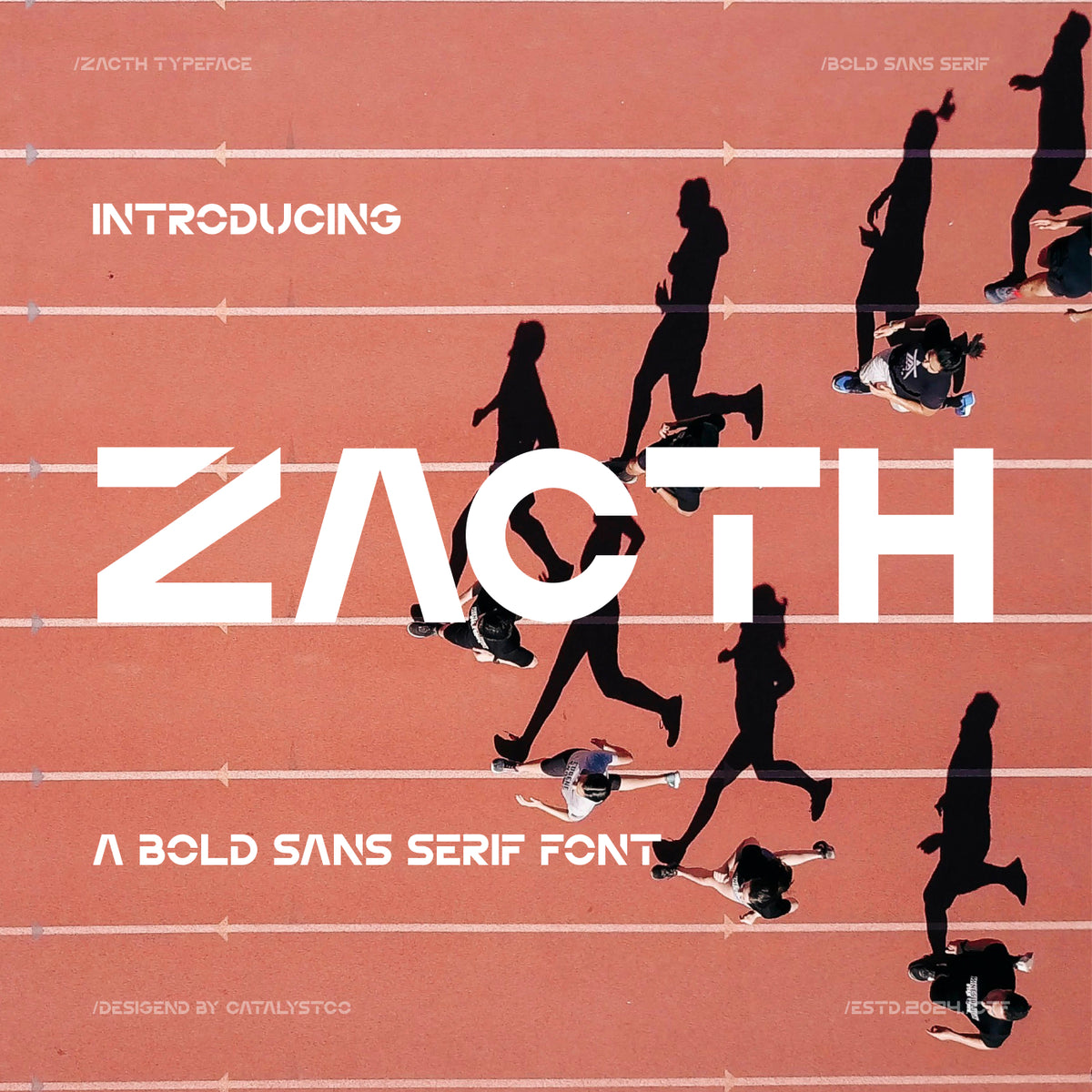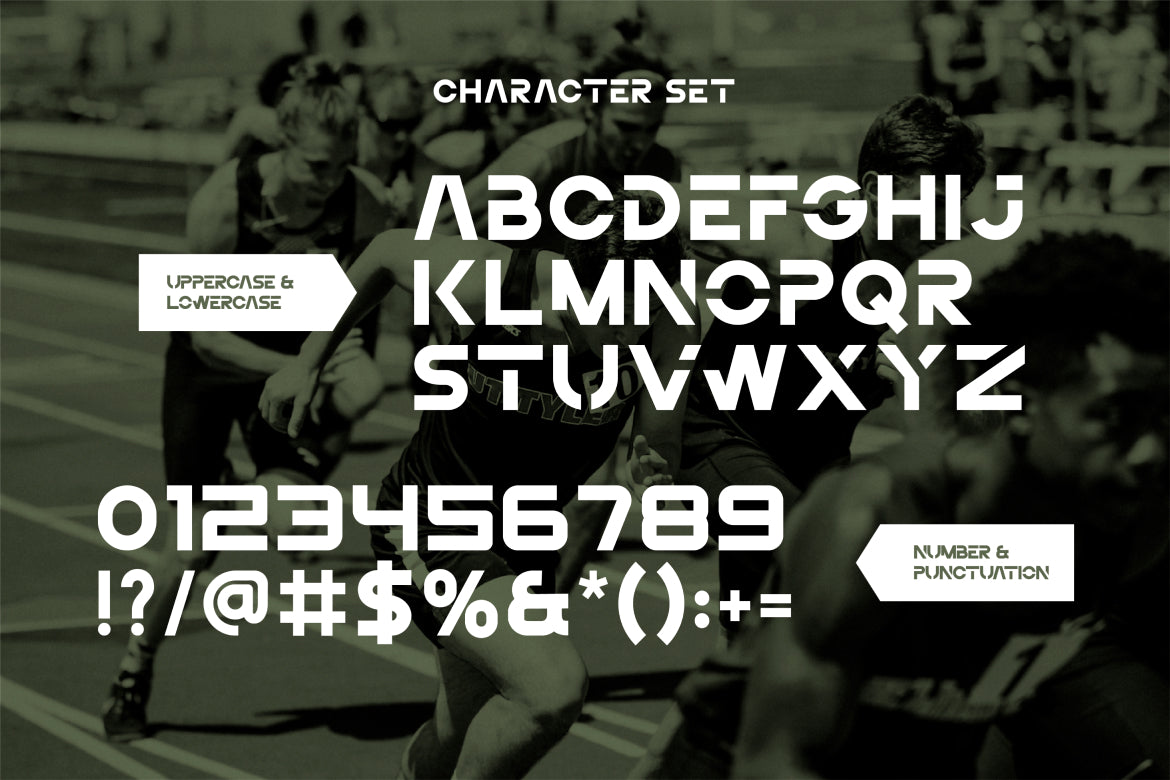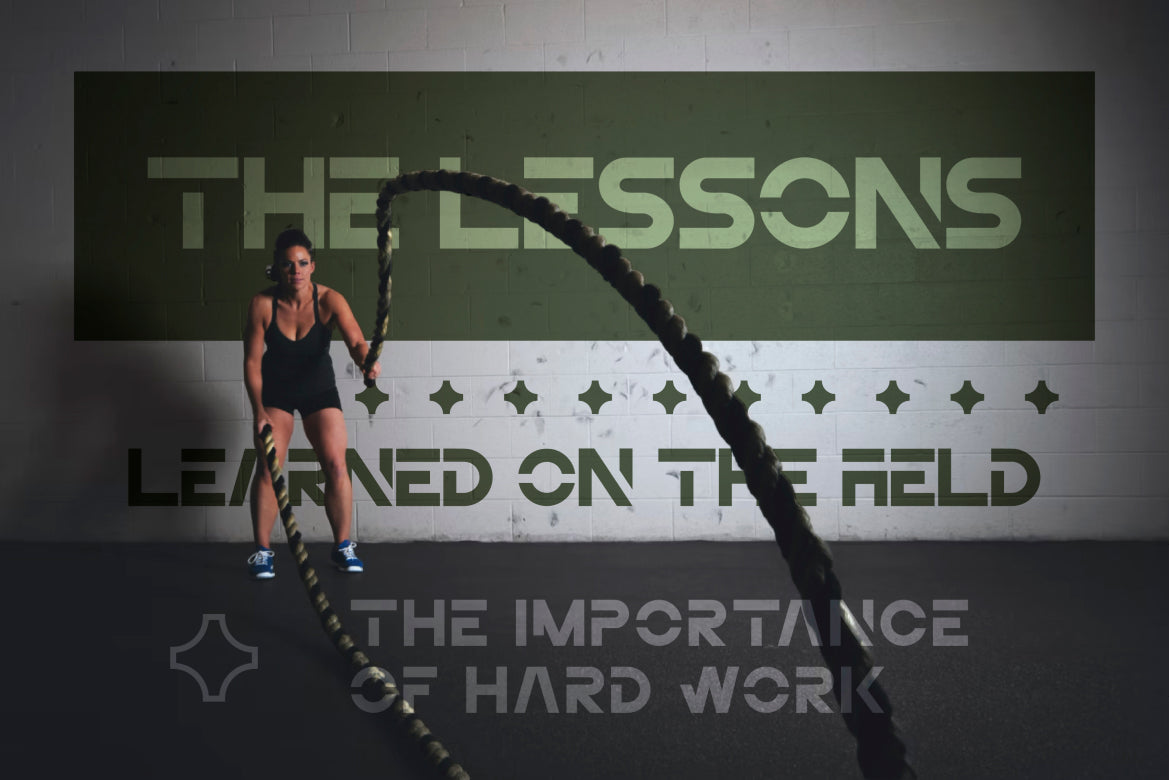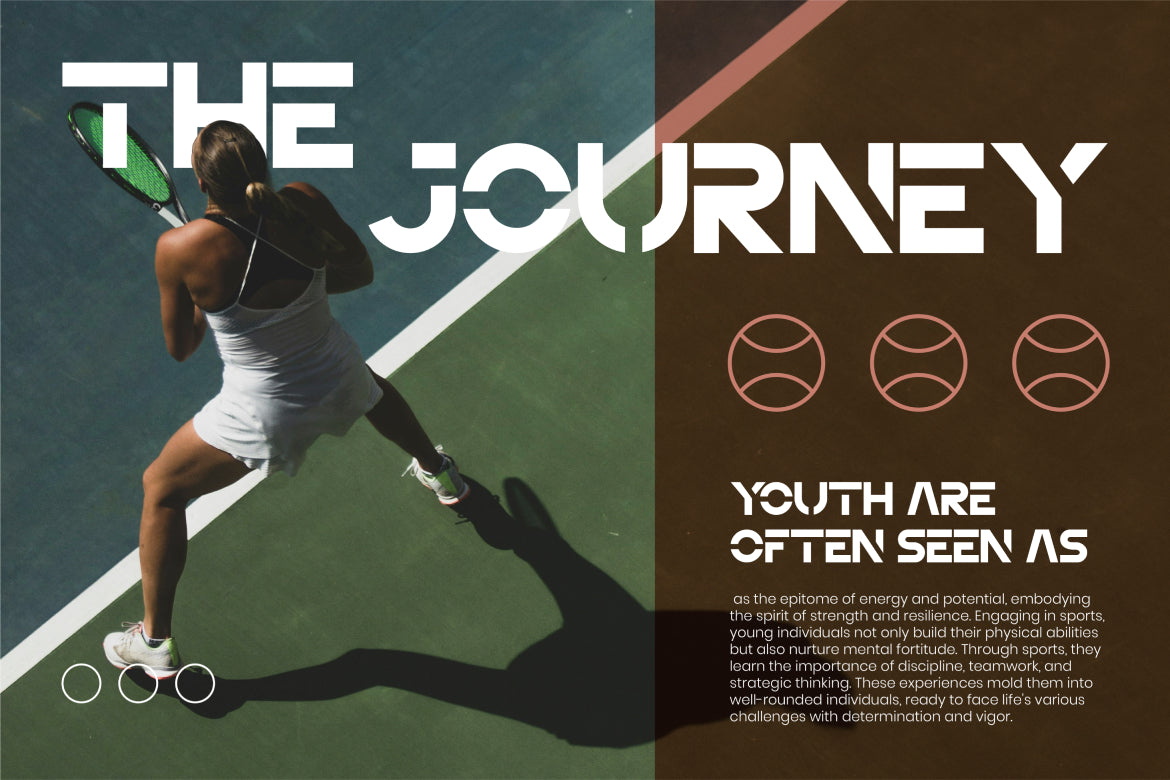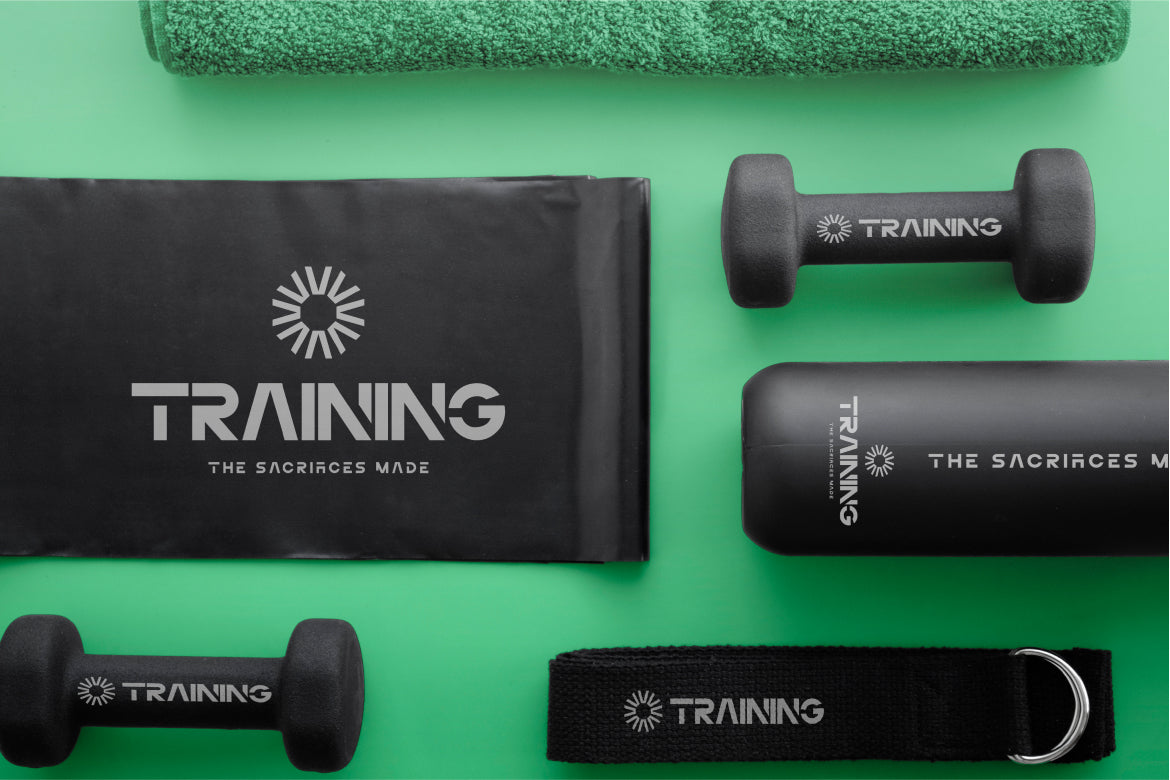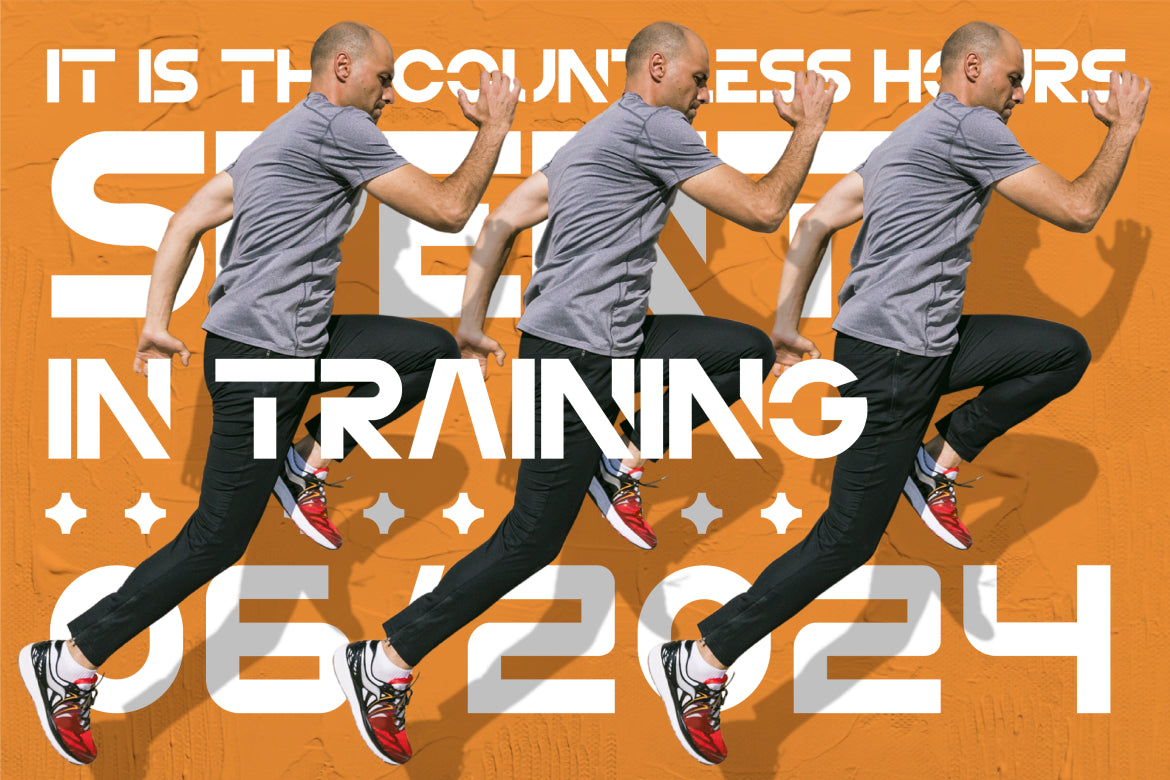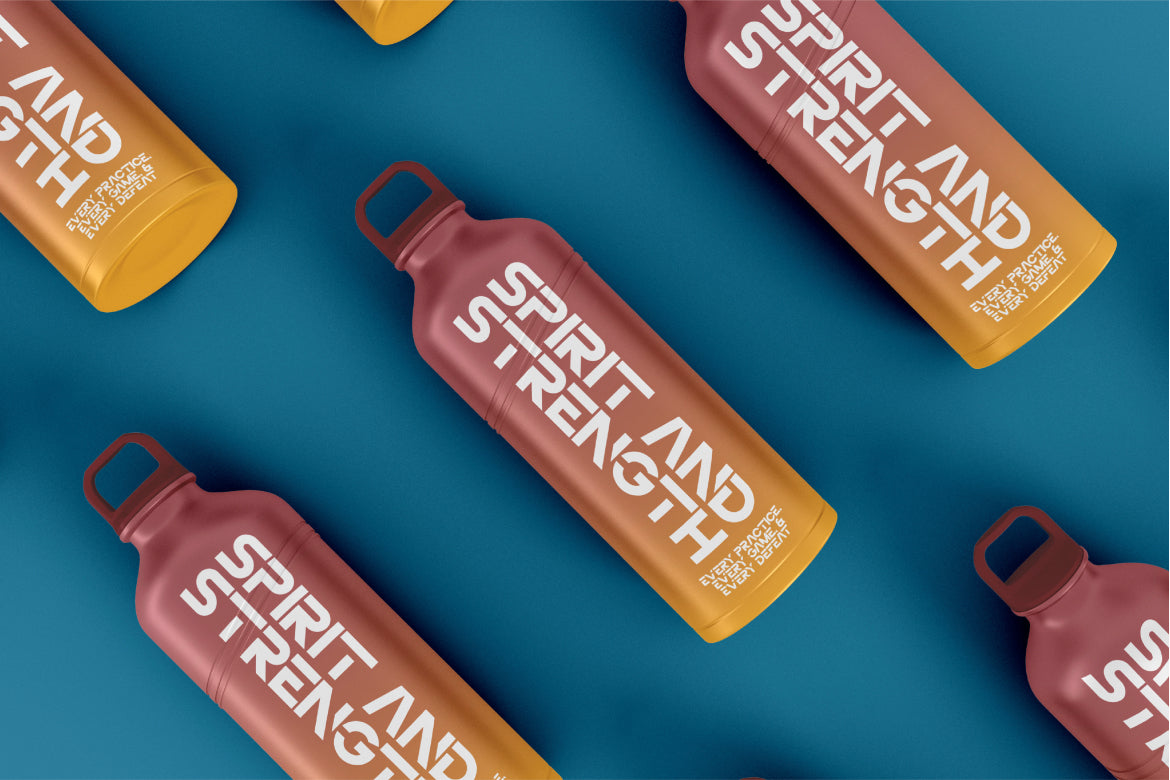
Zacth Bold Sans Serif Font
Zatch is a bold sans serif display font designed to deliver a strong, energetic, and contemporary visual impact. Its heavy letterforms feature wide proportions, clean geometric construction, and distinctive angular cuts that create a sharp, confident appearance. The solid strokes and structured shapes give each character a powerful presence, while the carefully crafted details add a futuristic edge to its overall personality. With its all-caps presentation and commanding visual weight, Zatch makes headlines stand out and gives typography a distinctive graphic identity.
Relevance and Use Case is perfect for visual projects that require bold communication, strong visual hierarchy, and a confident modern identity. Its geometric construction and athletic character make it a natural fit for sports campaigns, fitness branding, racing graphics, streetwear collections, event promotions, and bold advertising layouts. The font also works effectively in logo design, merchandise, editorial headlines, social media graphics, and packaging where a powerful typographic presence helps communicate energy and impact.
Zacth is a bold sans serif display font with heavy, wide letterforms and geometric construction, presented in all-caps with angular details. It includes uppercase and lowercase characters, numerals, and punctuation, available in TTF, OTF, and WOFF formats.